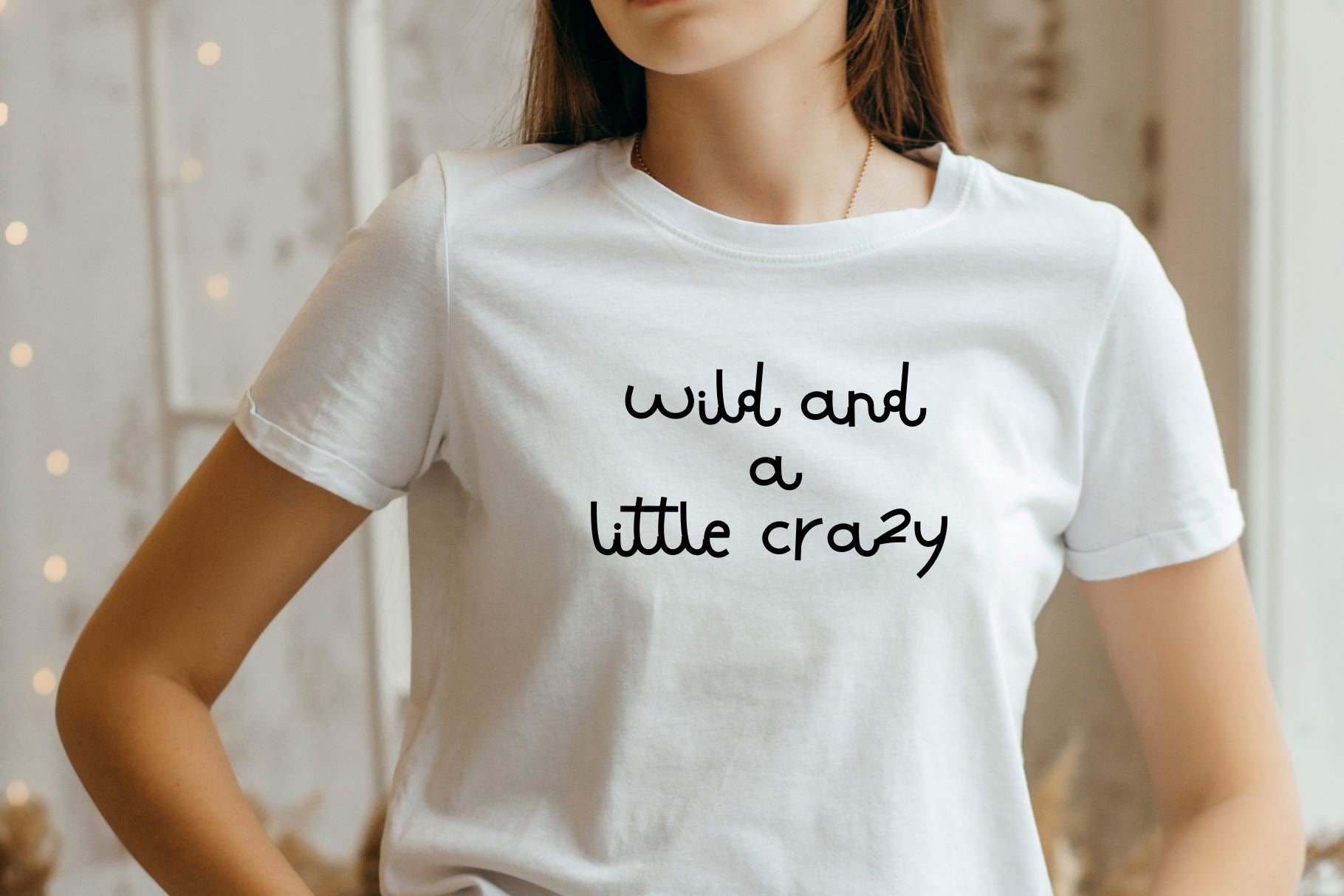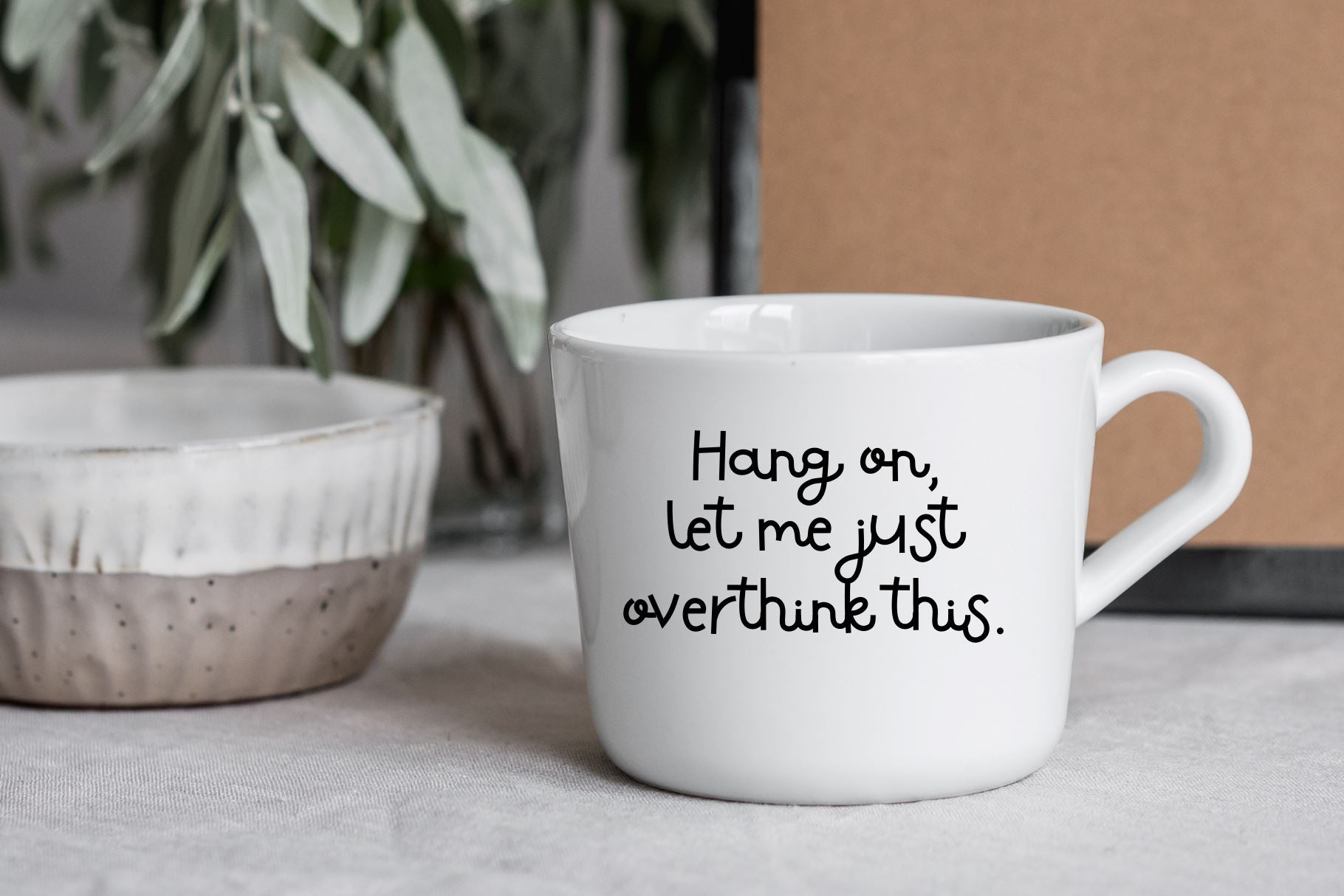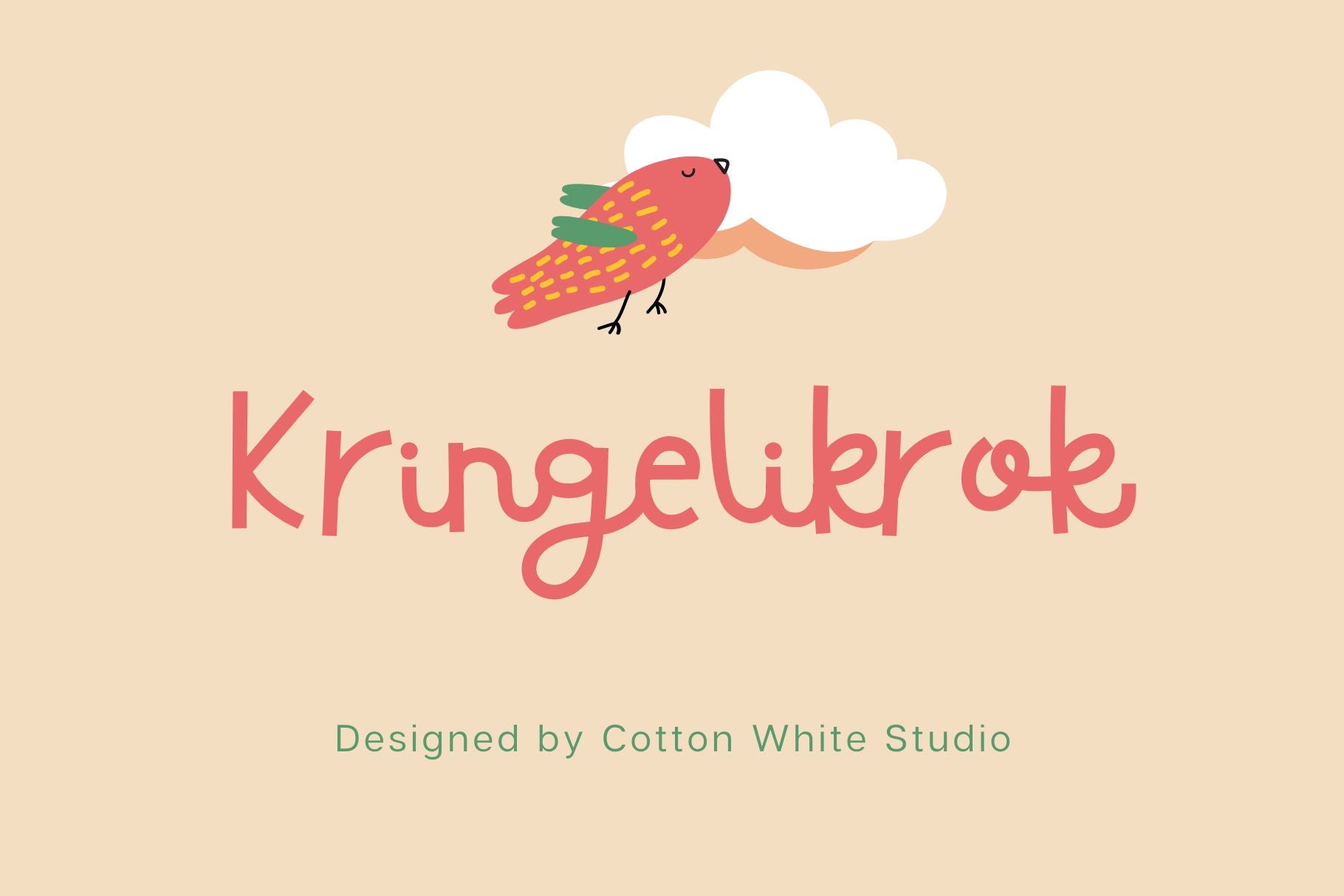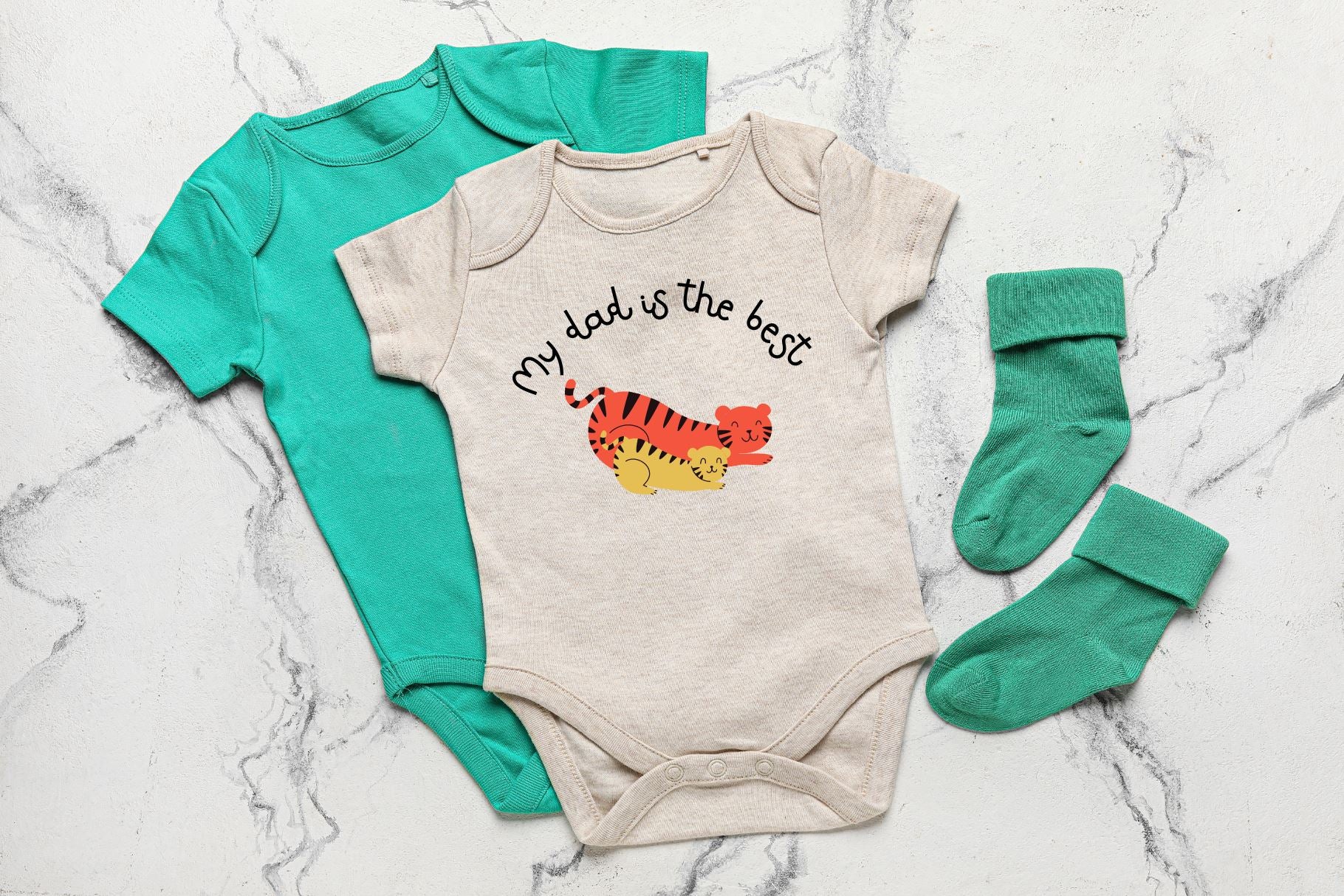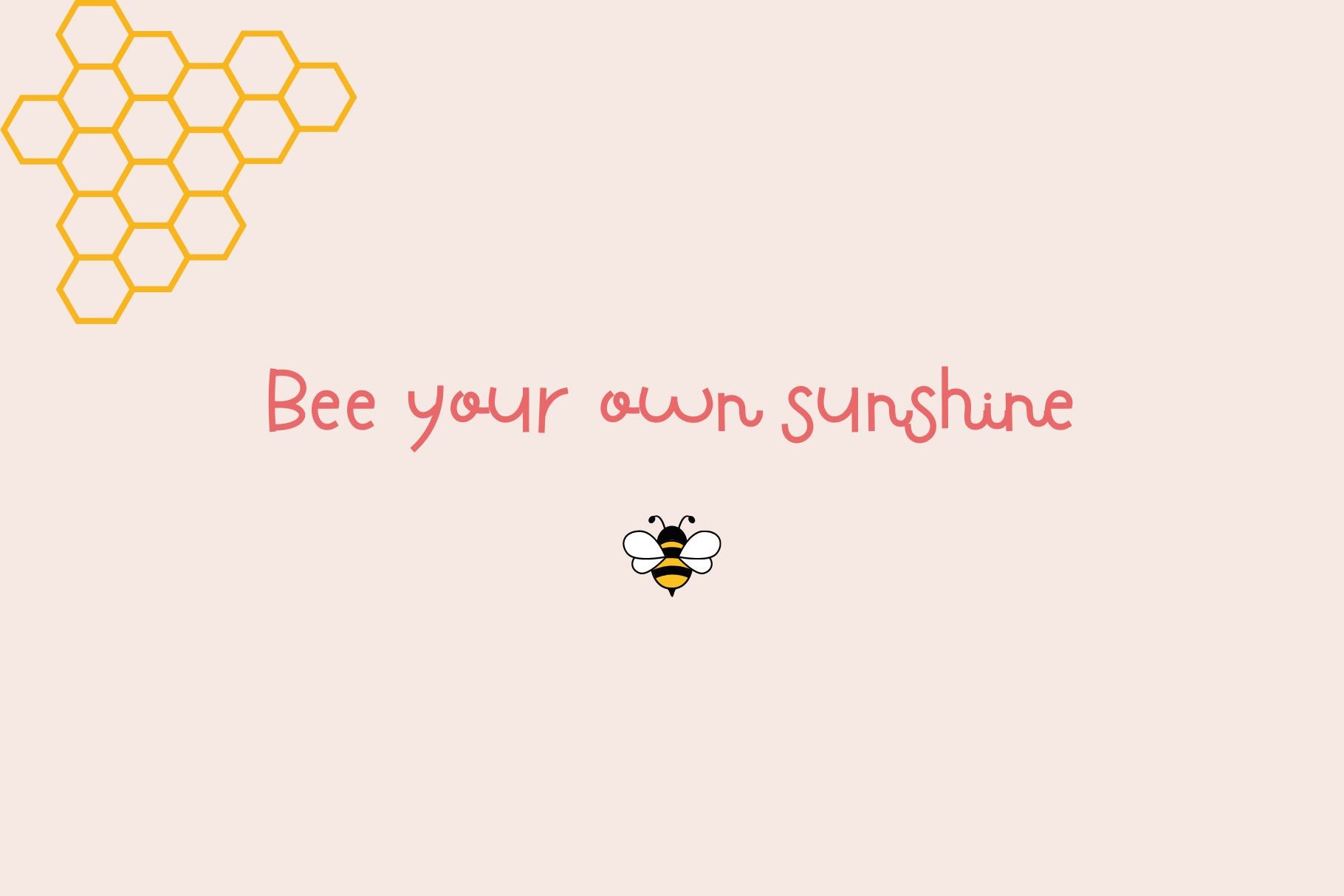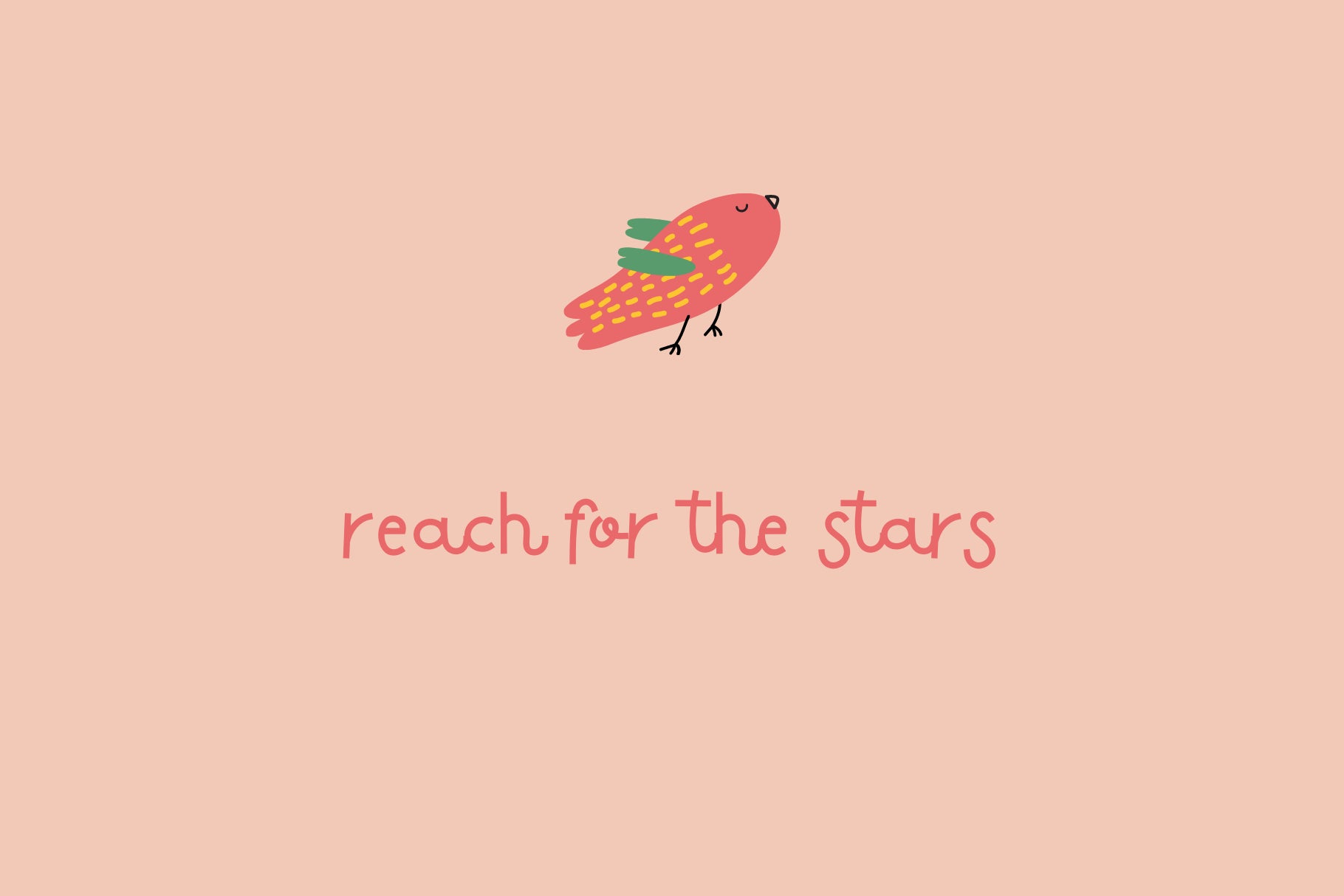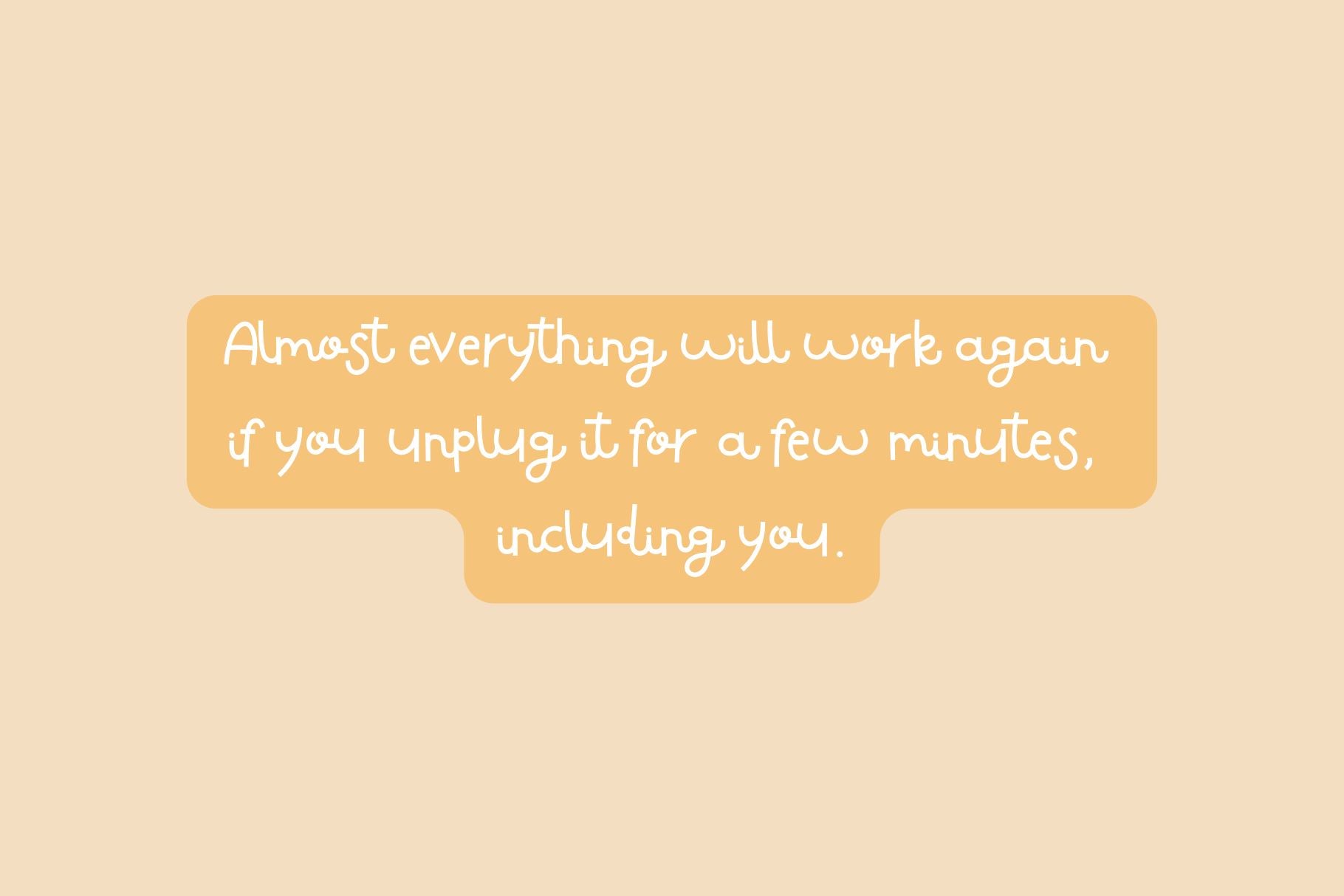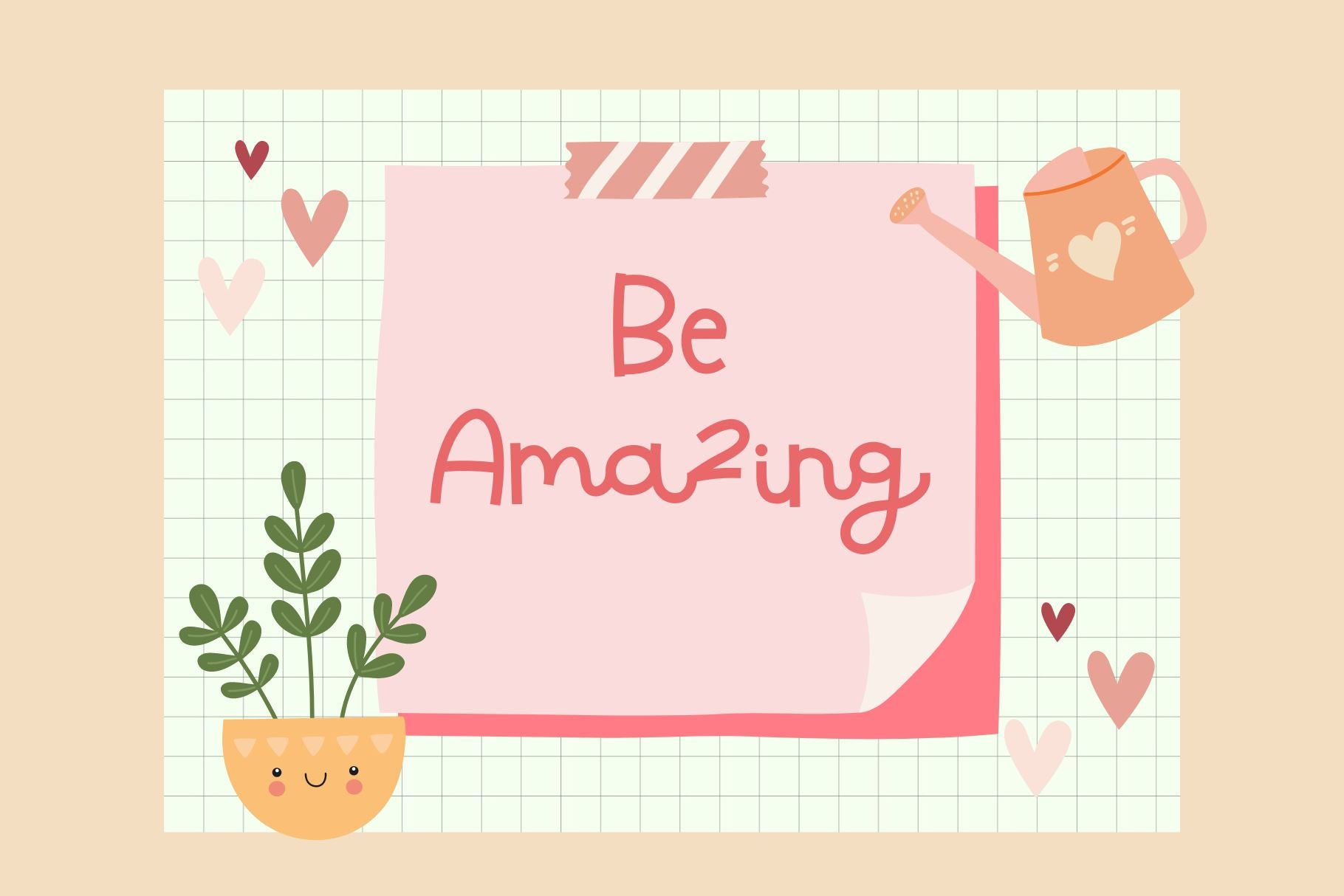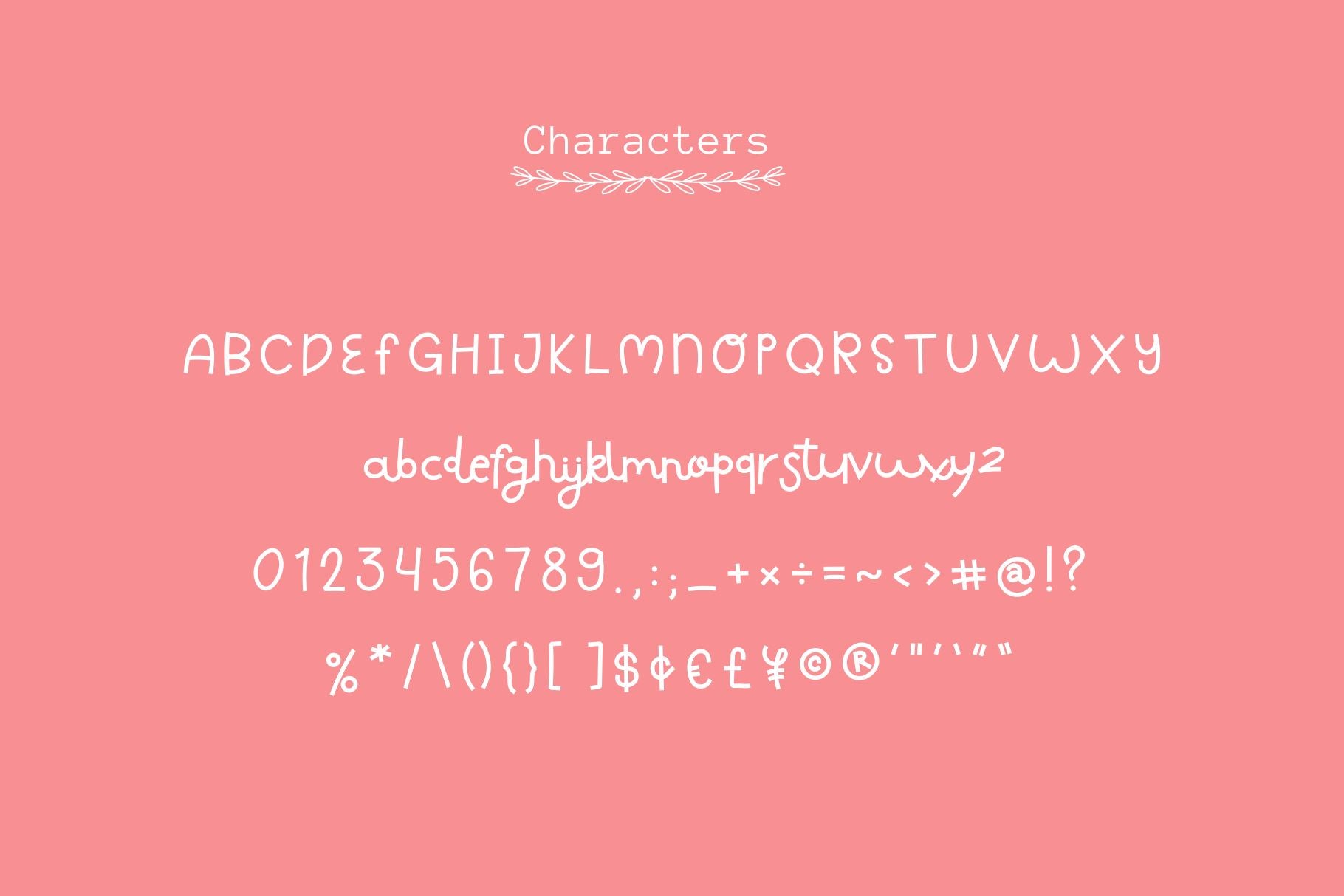
Kringelikrok
About Kringelikrok
Add some sweetness to your designs with this adorable cute font! It’s perfect for any project that needs a touch of whimsy and charm. From greeting cards and invitations to social media graphics and branding materials, our cute font will bring a playful energy to your work. With its playful curves and delightful details, this font is sure to make your designs stand out. So don’t wait any longer – try our cute font today and add some cuteness to your design projects! 😍 You’ll receive this fonts in TTF, OTF, WOFF and WOFF2 Uppercase Letters Lowercase Letters Numbers & Punctuation Characters included in each font: a b c d e f g h i j k l m n o p q r s t u v w x y z A B C D E F G H I J K L M N O P Q R S T U V W X Y Z 0 1 2 3 4 5 6 7 8 9 . , : ; ! ? ‘ \” ‘ ’ “ ” @ _ & # % * + – × ÷ = ~ < > / ( ) { } [ ] $ ¢ € £ ¥ © ® ™